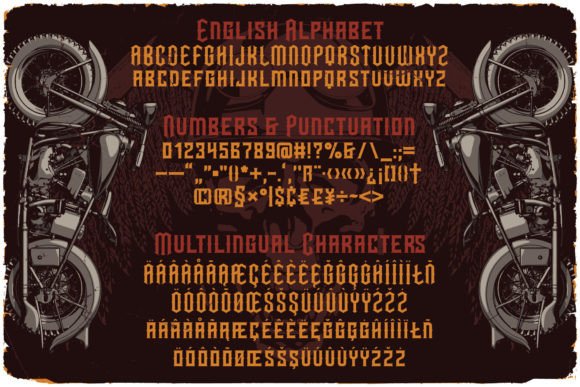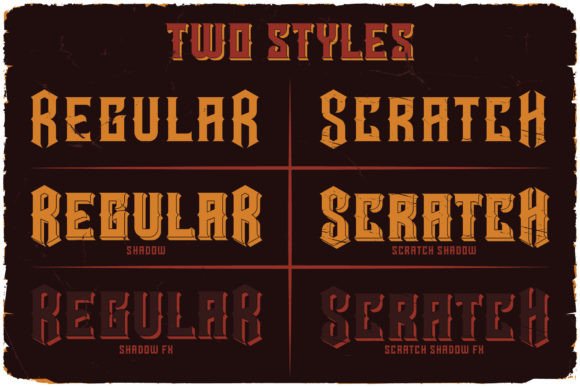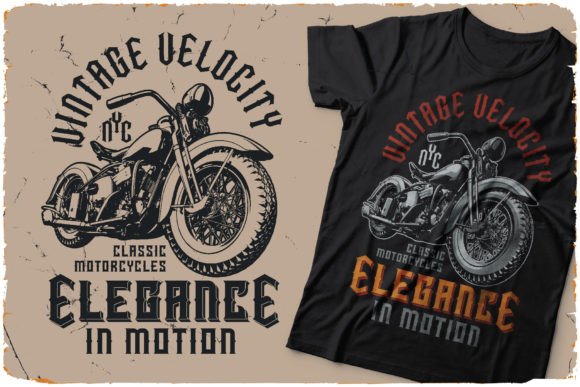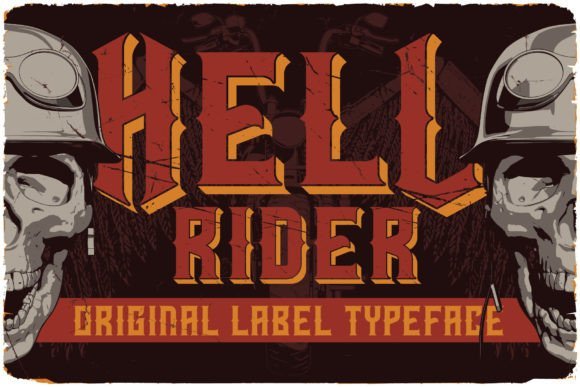
Introduction to Hell Rider Font
Meet Hell Rider, a vintage label font that embodies the rugged spirit of the open road.
With its weathered edges and bold lettering, Hell Rider adds a touch of nostalgia and adventure to your designs Whether you’re crafting classic labels, vintage-inspired packaging, or retro posters, this font revs up the authenticity and gives your projects a timeless, rebellious charm.
Key Features of Hell Rider Font
Why Choose Hell Rider Font?
Hell Rider Font offers exceptional quality and versatility, making it a valuable addition to your design toolkit. Whether you’re creating for personal projects or commercial use, Hell Rider Font delivers professional results.